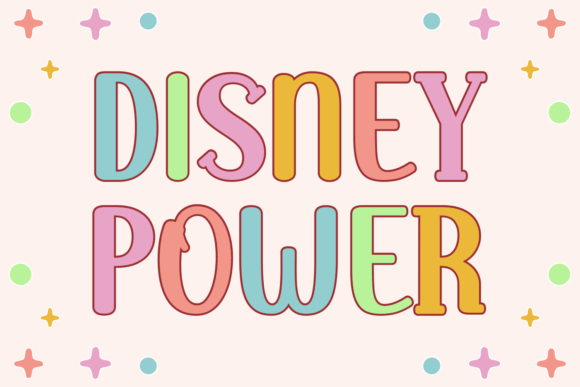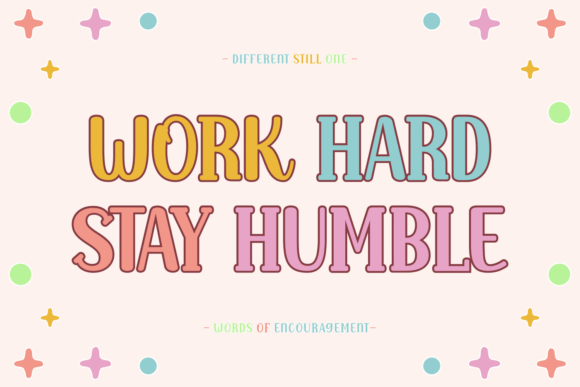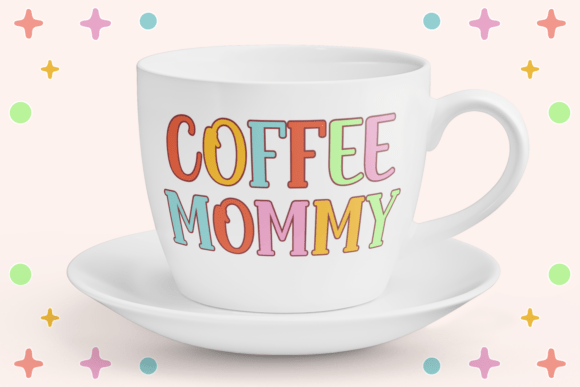
Introduction to Different Still One Font
Immerse yourself in the whimsical charm of “Different Still One Display Font”.
Exuding cuteness and playfulness, this handwritten style typeface boasts of multilingual accents, authentic uniqueness, and a clean aesthetics It’s designed to lend eloquence to greeting cards and quotes, crafting an emotional connection with your readers.
Key Features of Different Still One Font